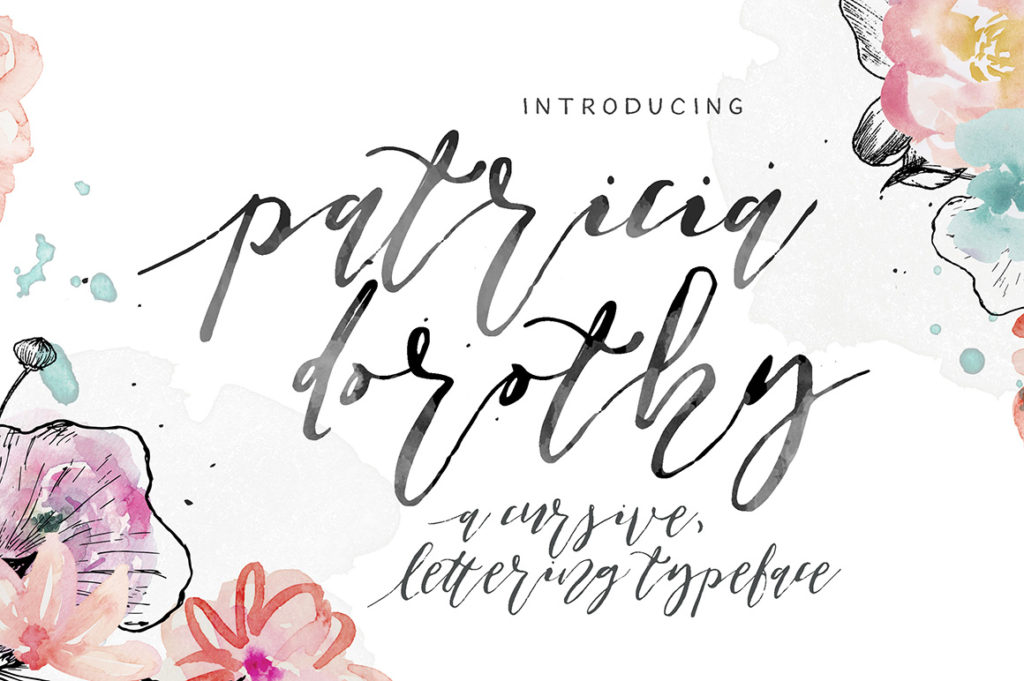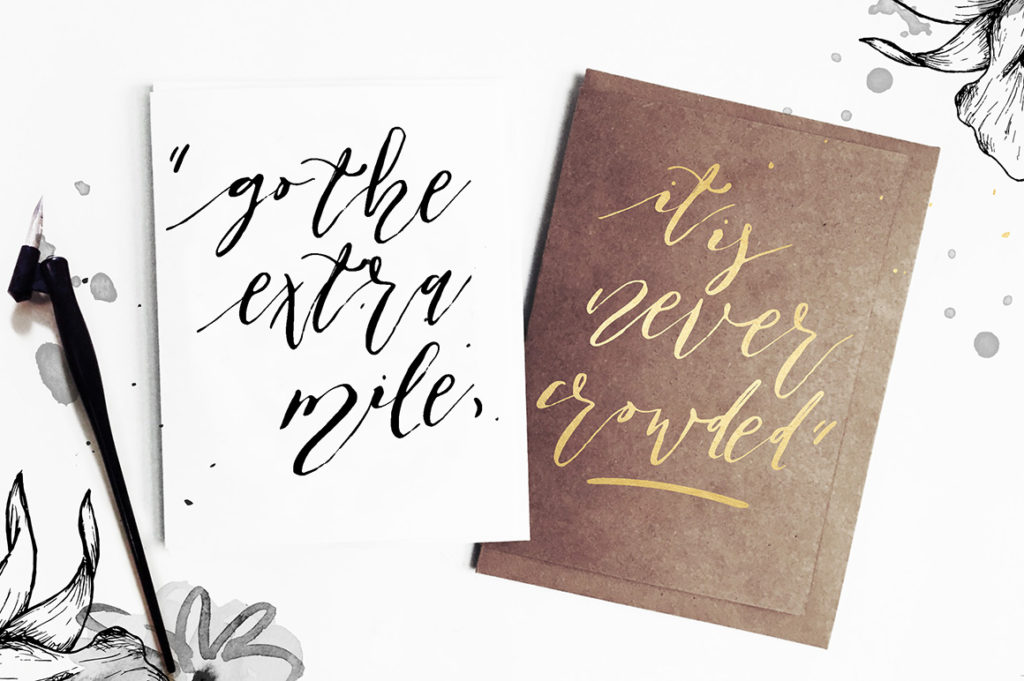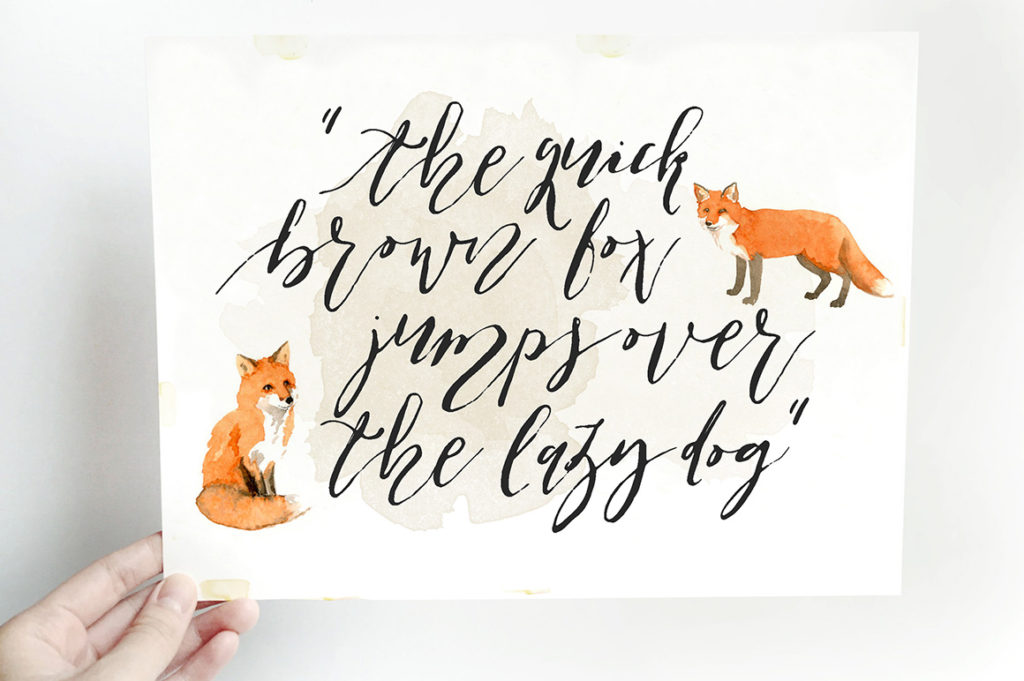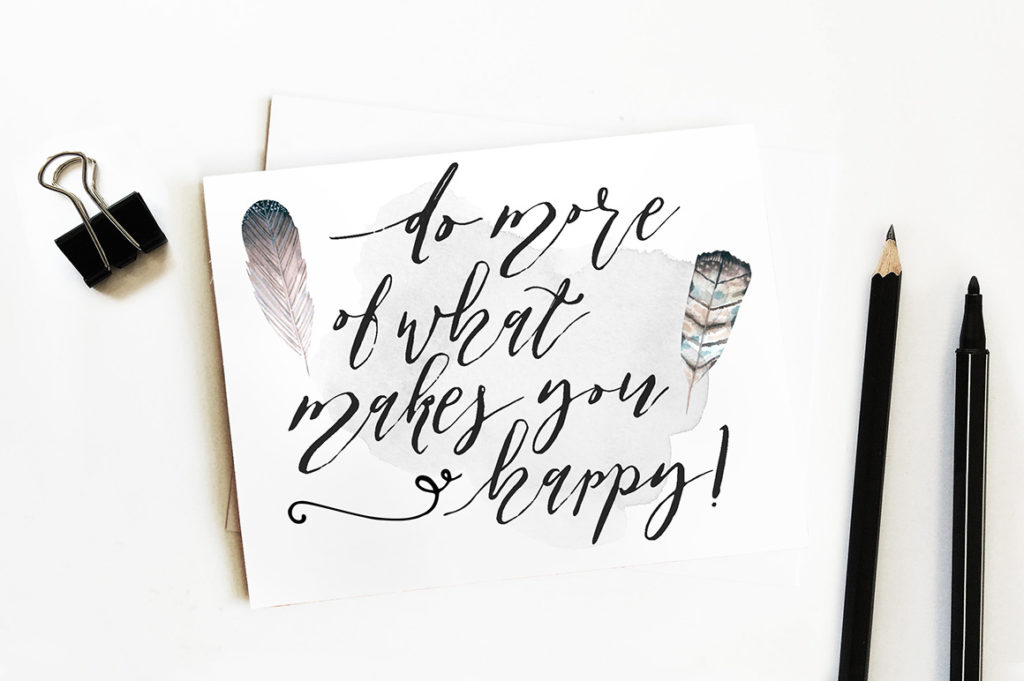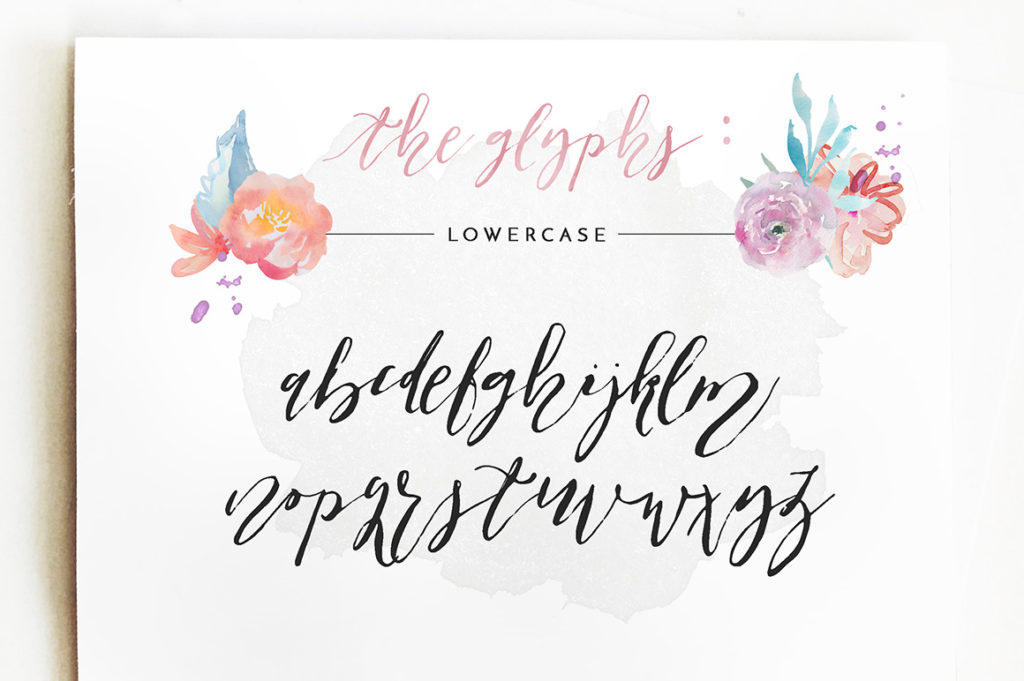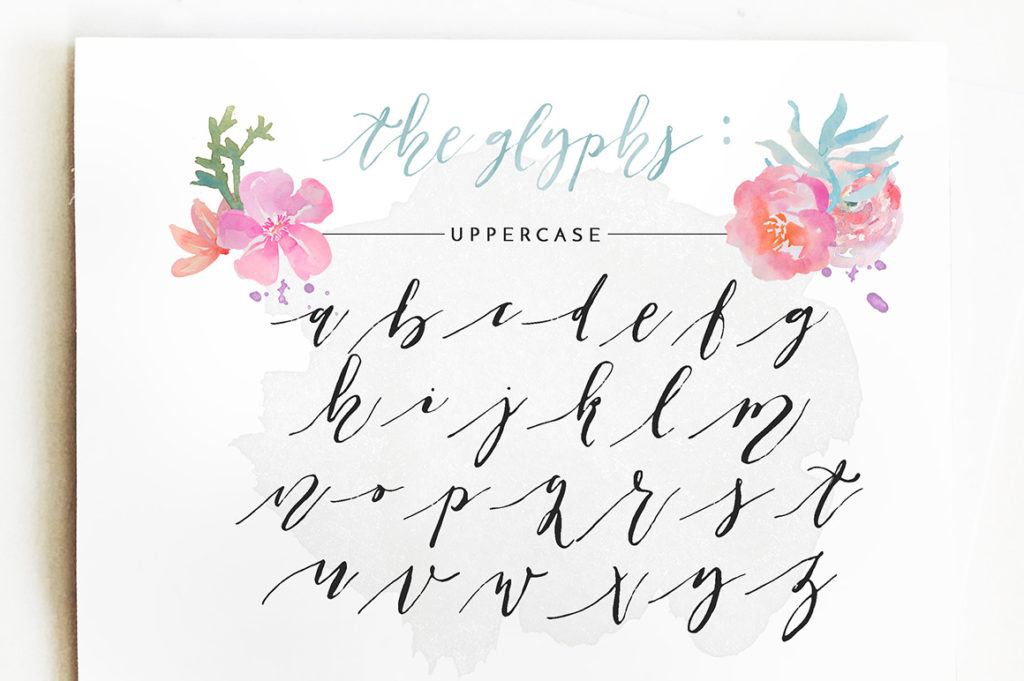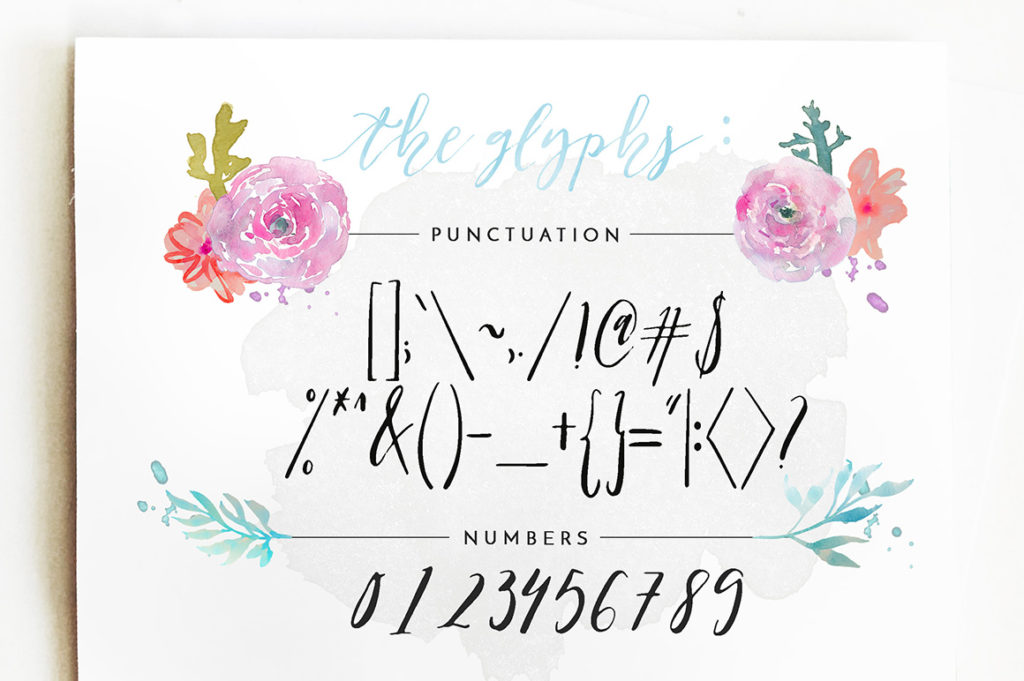
Patricia Dorothy Font
About Patricia Dorothy Font
Patricia Dorothy is a cursive, hand lettered typeface. Created manually using brush pen, Patricia Dorothy can be used for various branding and design work such as: wedding cards and invites, greeting card title, signature for design work, badge and sticker, logo and return address and so forth, you decide!